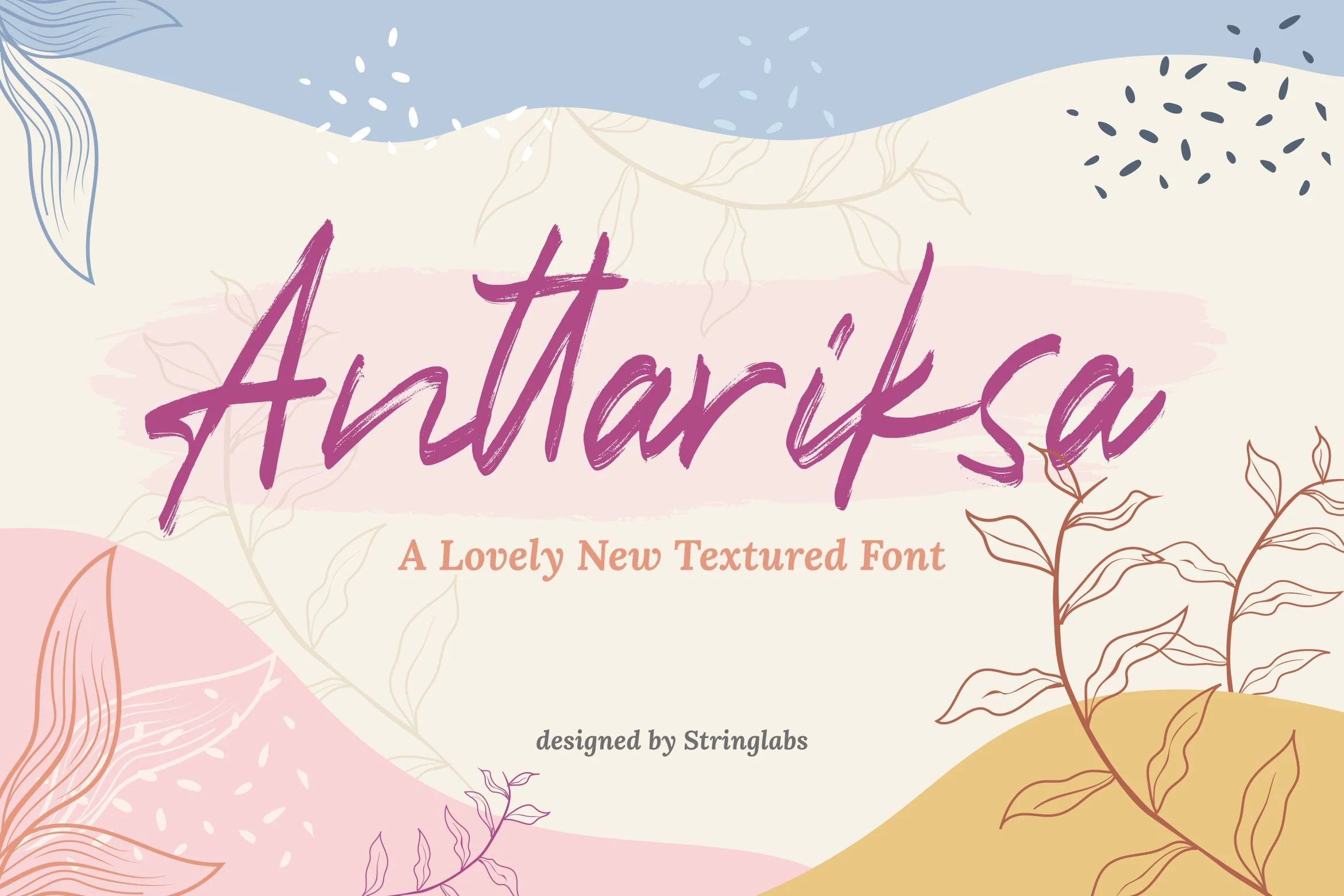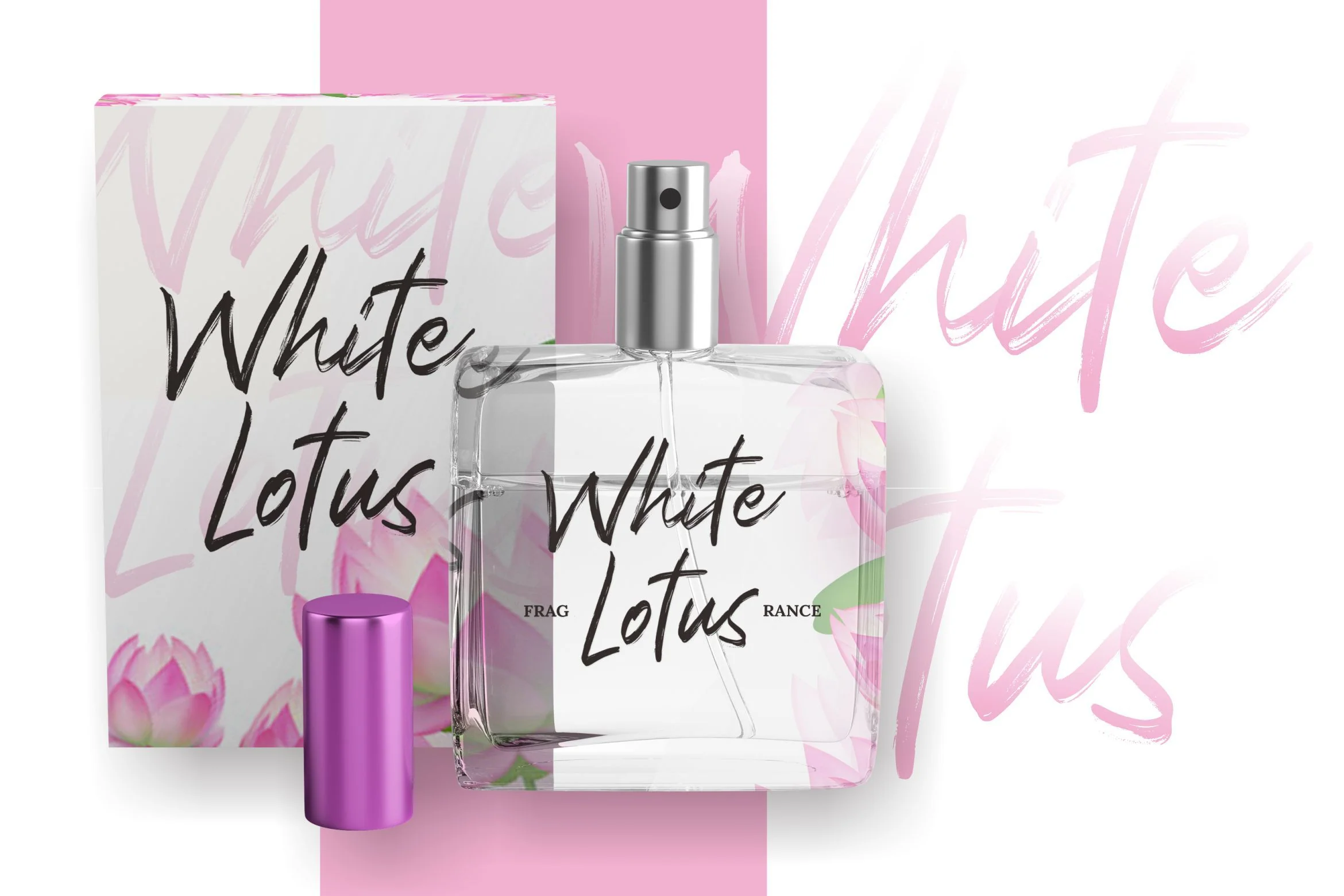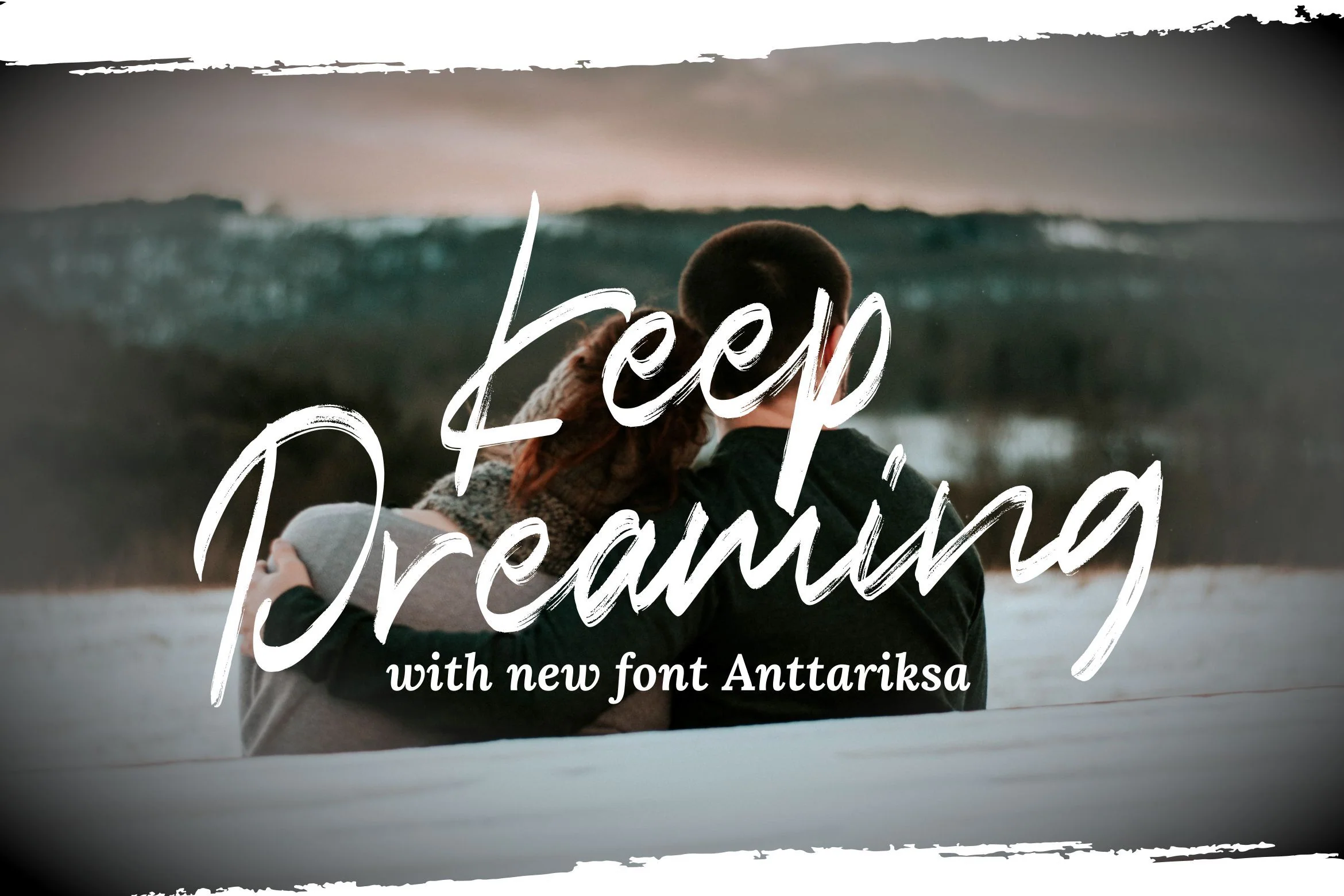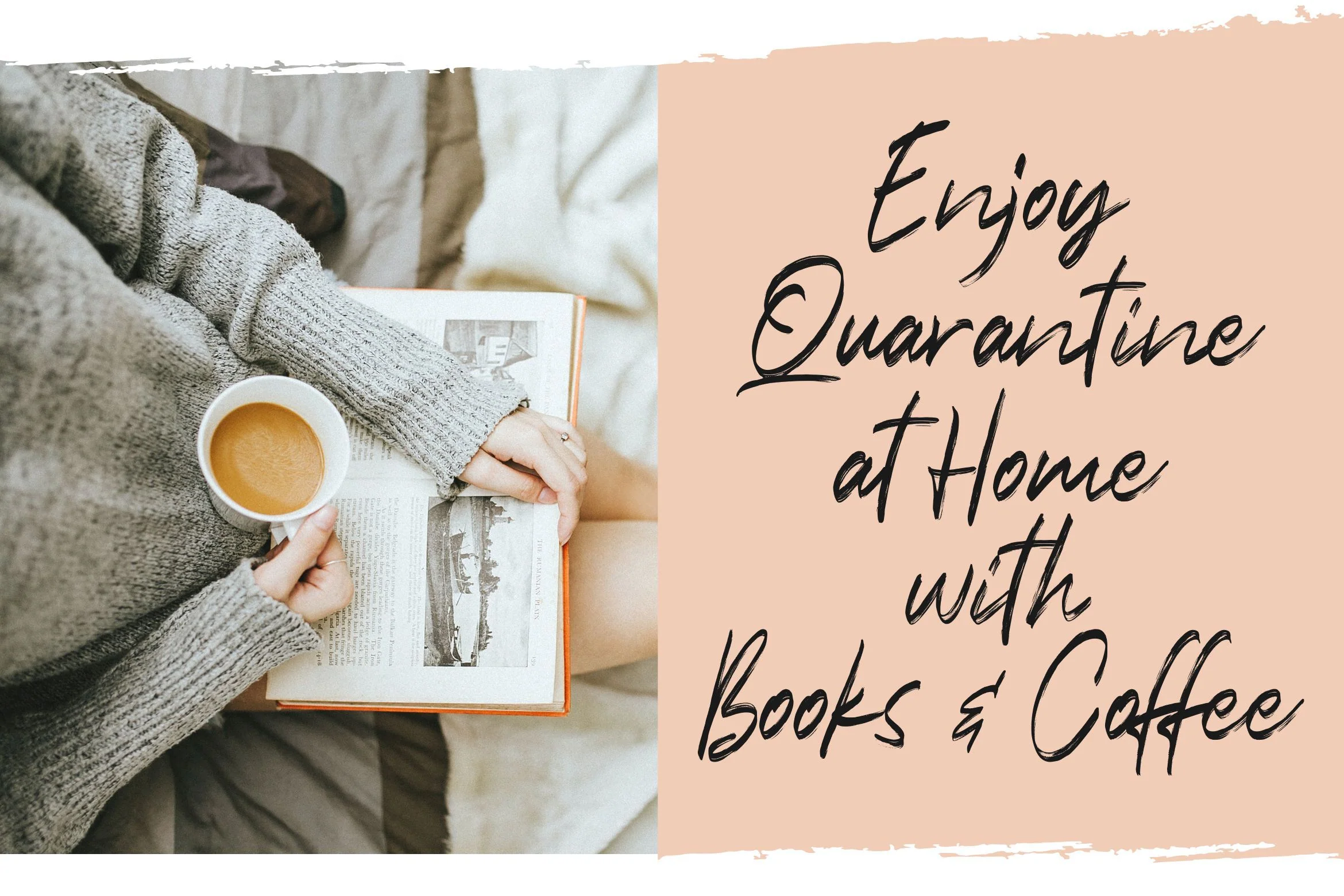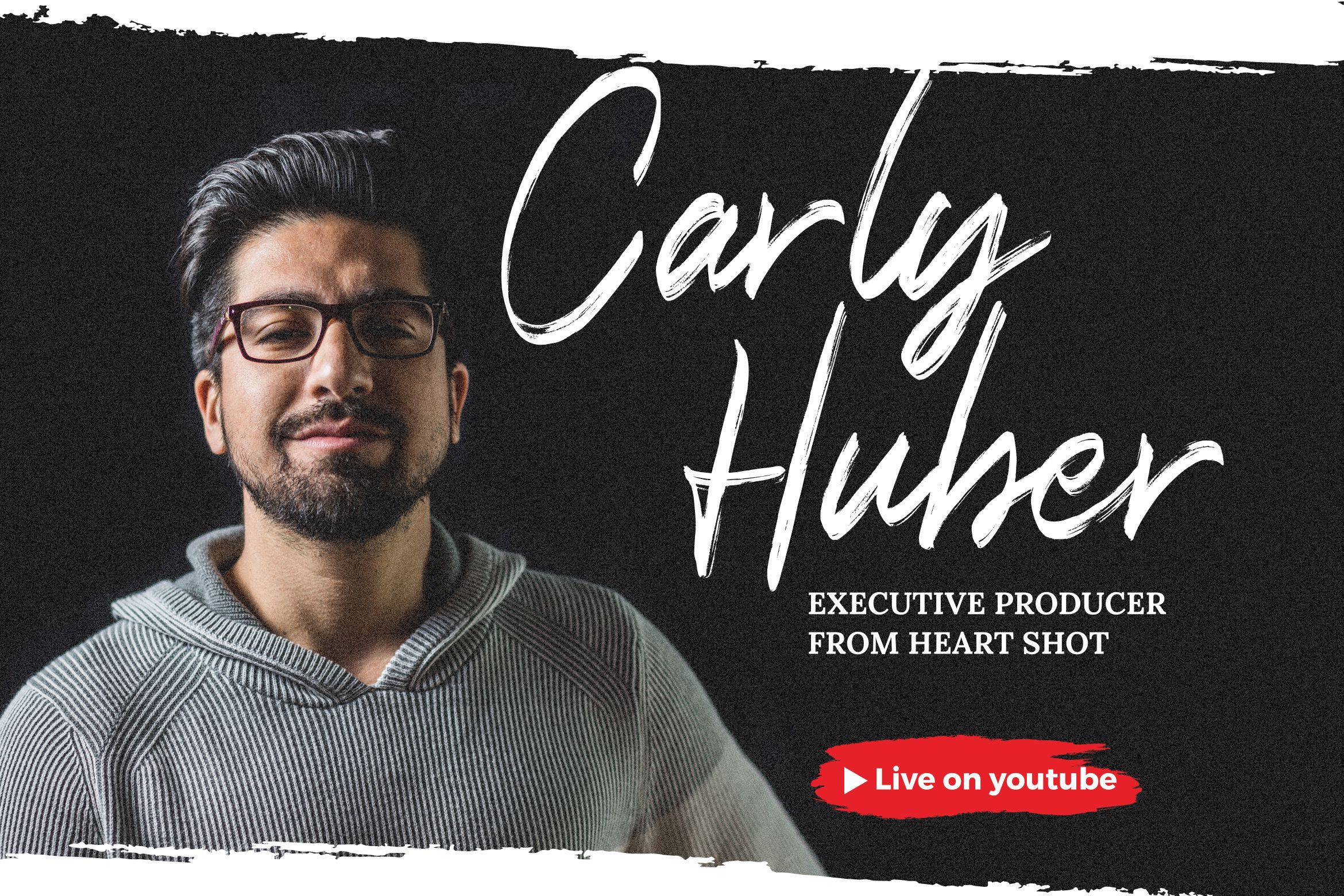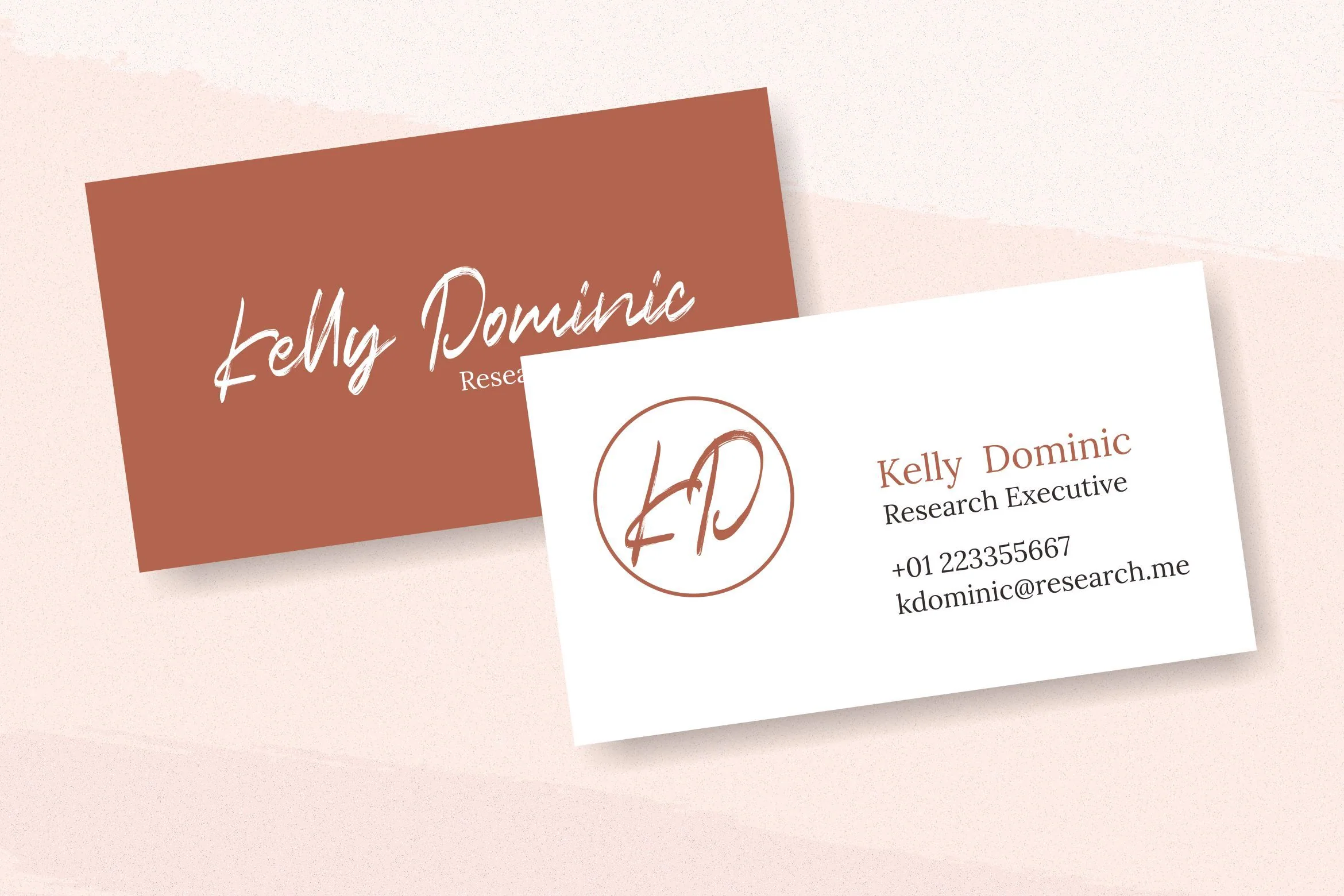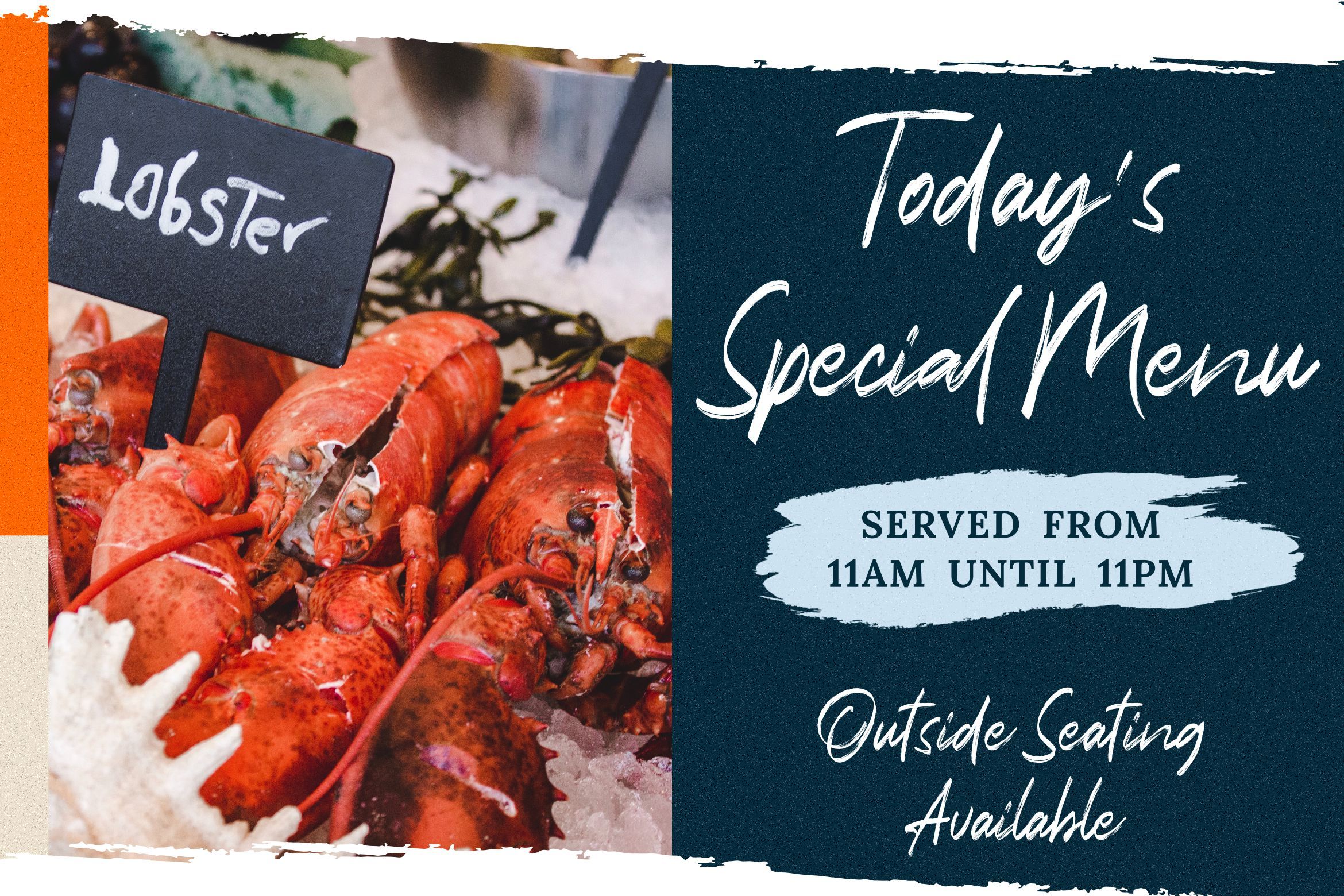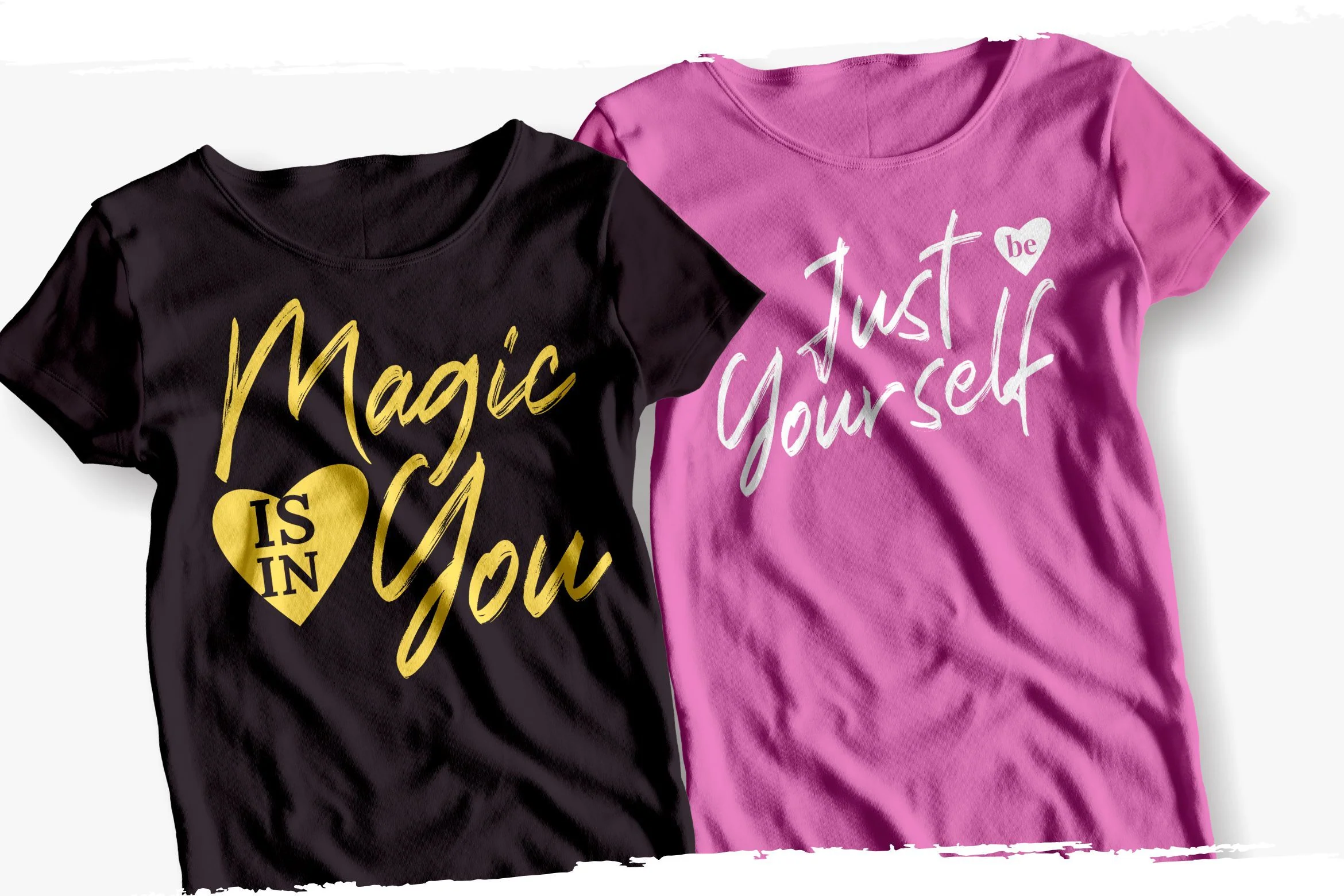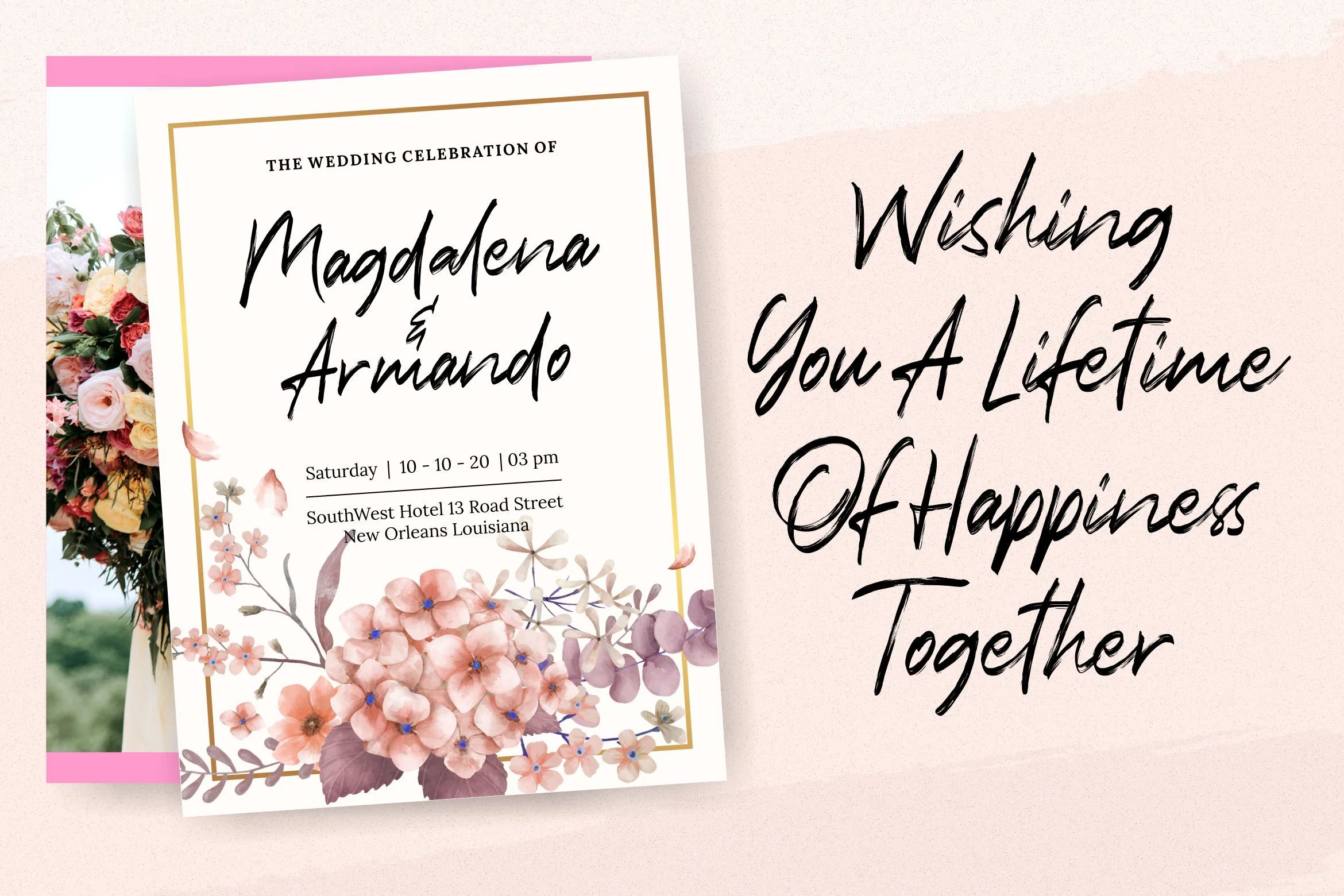
Anttariksa - Brush Script Font
Introducing Anttariksa - Brush Script Font
Anttariksa is a Brush Script Font with Handwritten textured style. The Anttariksa font was created with authentic handmade brush pen. This font is perfect for fashion brand, wedding invitation, business card, logo brand, signature, and then calligraphy.
This Font Template contains Classy, Elegant, Creative, Cool and has a Unique Concept.
Introducing Anttariksa - Brush Script Font
Anttariksa is a Brush Script Font with Handwritten textured style. The Anttariksa font was created with authentic handmade brush pen. This font is perfect for fashion brand, wedding invitation, business card, logo brand, signature, and then calligraphy.
This Font Template contains Classy, Elegant, Creative, Cool and has a Unique Concept.